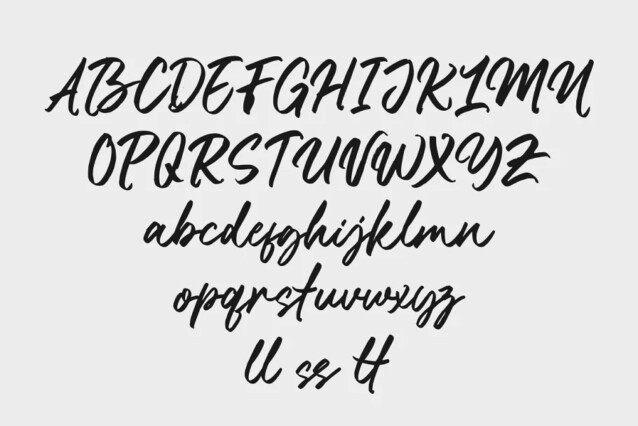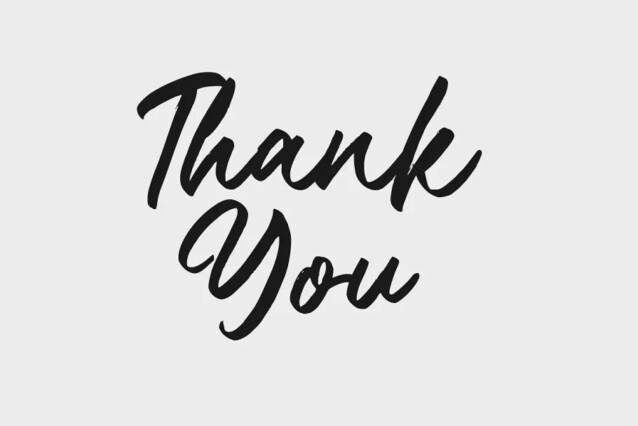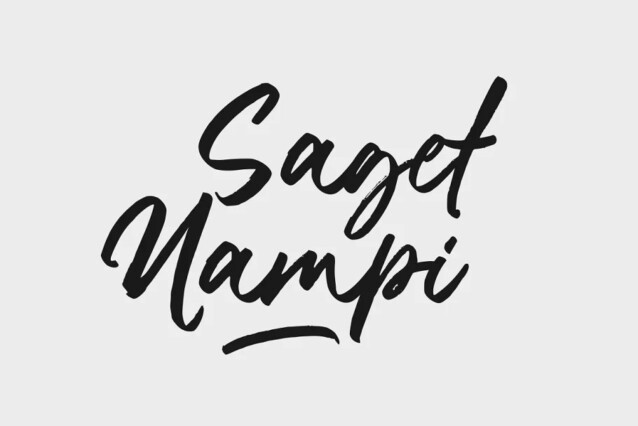
Bathuk Anget Font
Bathuk Anget Font is a hanwriting font created by GFRcreative with a natural and modern flow. With quick dry strokes and a signature style, this font has been carefully designed to re-create natural handwritten text. Perfectly fit for handwritten quotes, signature-style logos, stylish branding projects, and hand-crafted product & stationery designs.